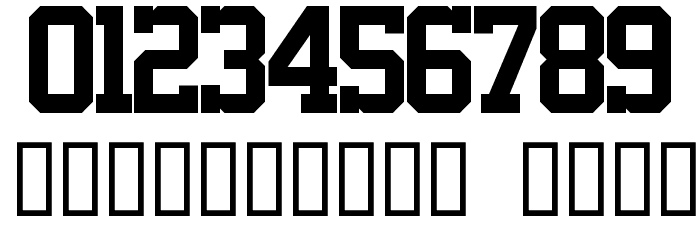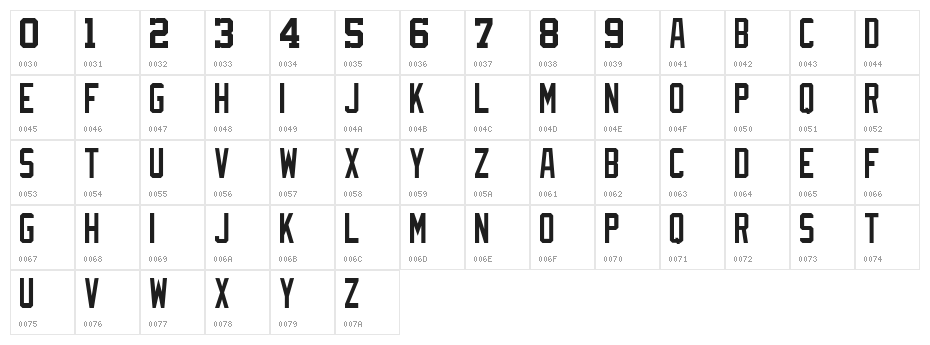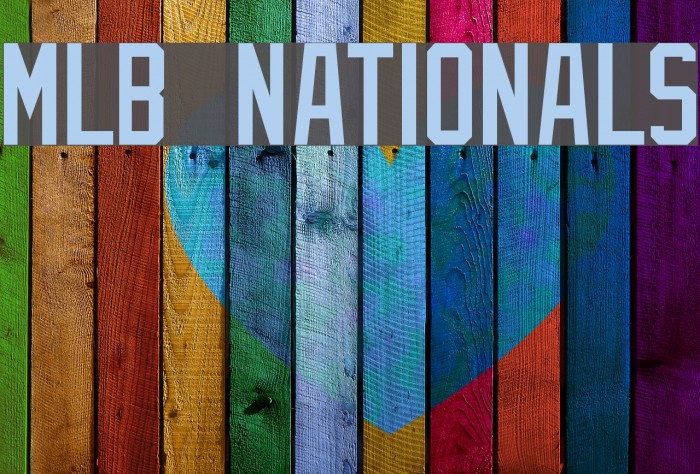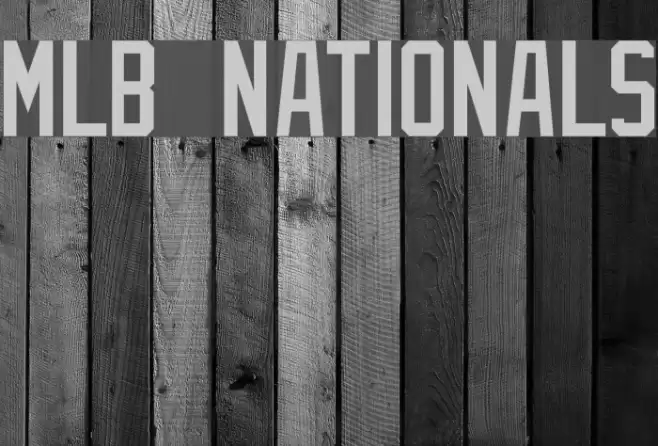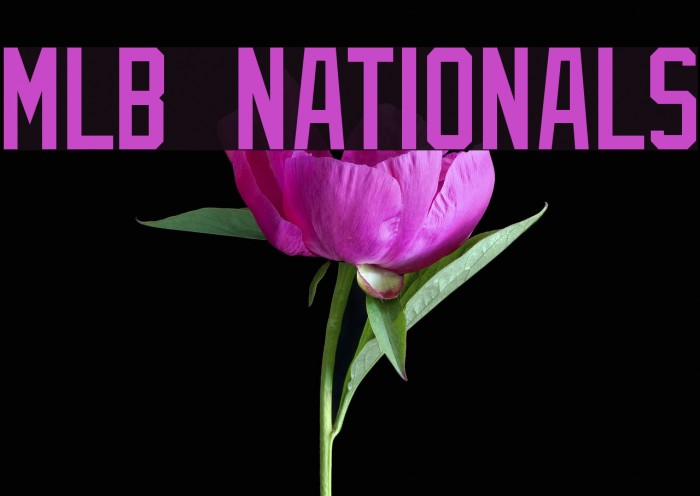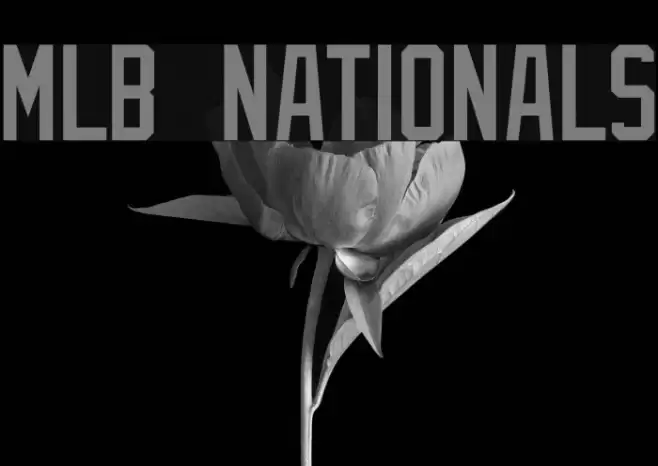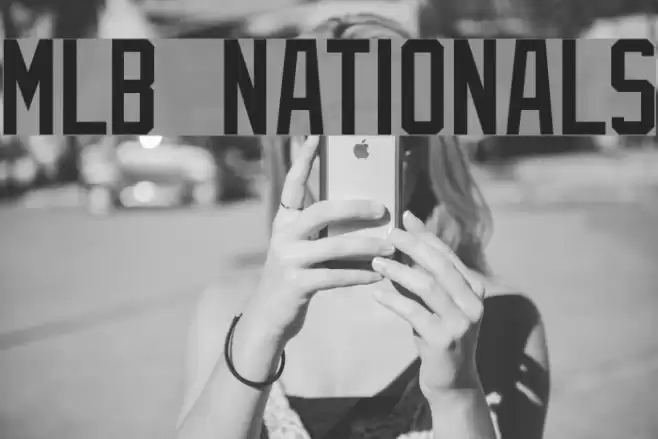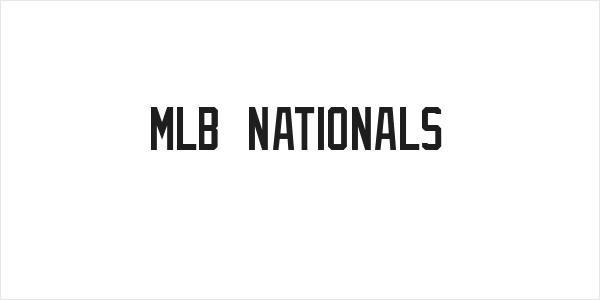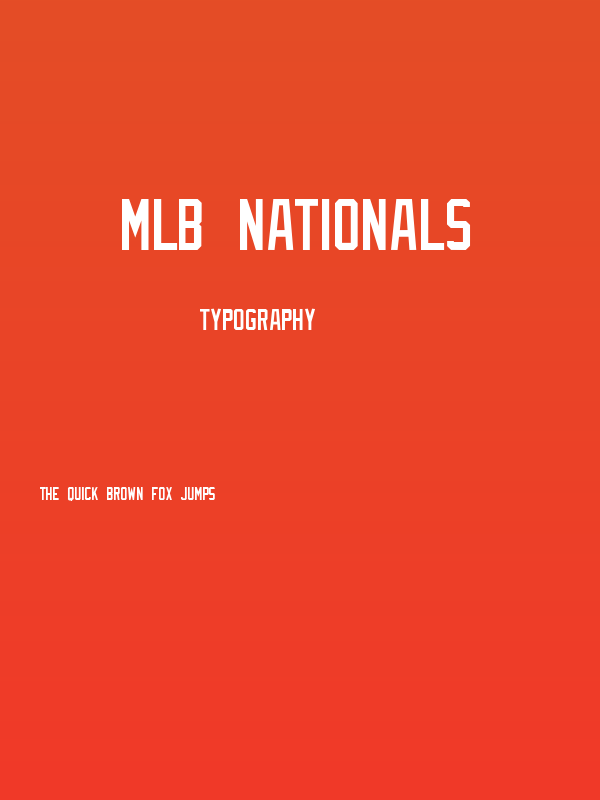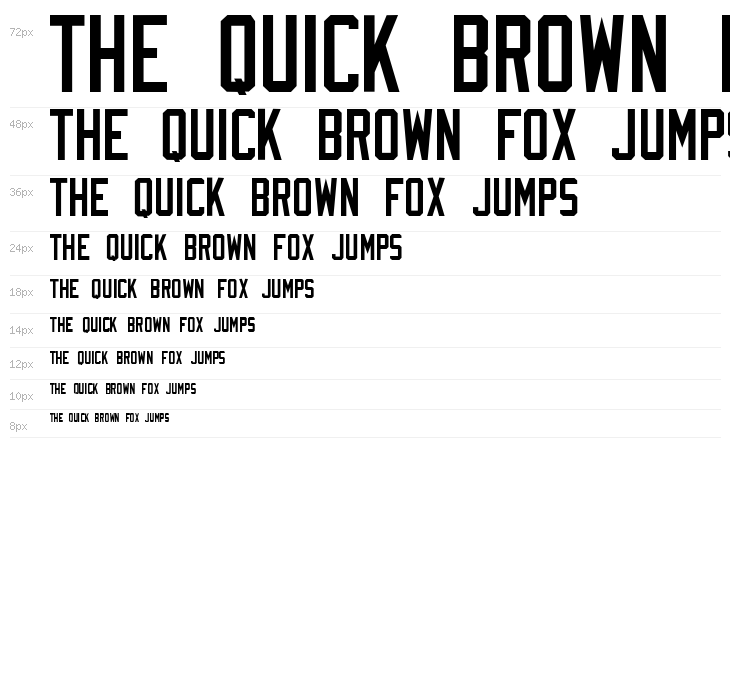
MLB Nationals Font
MLB Nationals Description
This font features a bold and robust design, characterized by its thick, block-like letters that convey strength and stability. The uppercase letters are uniform in height and width, creating a cohesive and structured appearance. The numerals are equally bold, maintaining the same width as the letters, which ensures consistency across all characters. The font's geometric shapes and straight lines give it a modern and industrial feel, making it suitable for projects that require a strong visual impact. Its lack of curves and embellishments emphasizes simplicity and functionality.
| Proposed Projects | Ideal for sports branding, team logos, posters, and merchandise designs. |